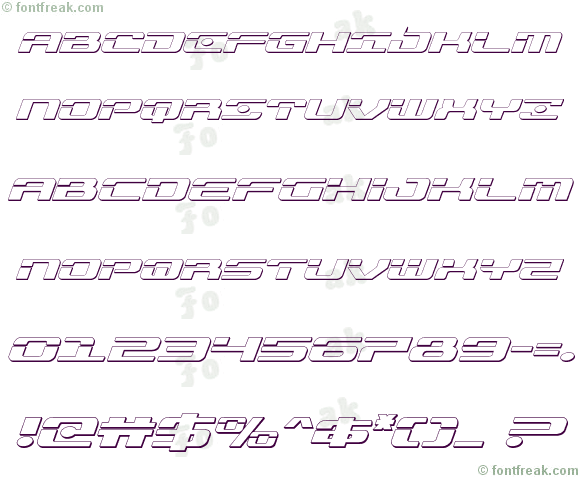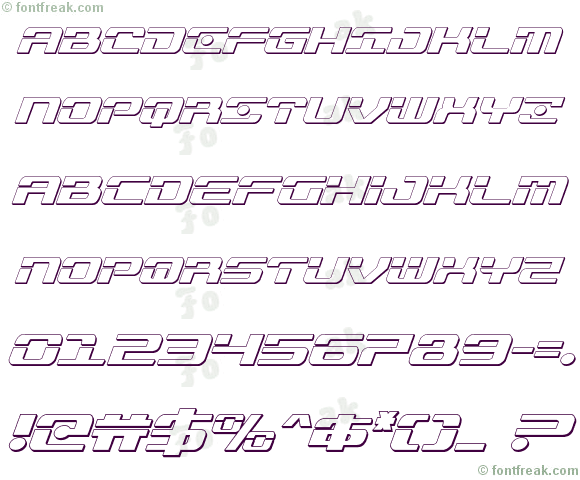
Troopers Academy Expanded
About Troopers Academy Expanded
Troopers Academy Expanded, designed by Daniel Zadorozny, is a striking display font that falls within the decorative category. This font captures a bold, dynamic style with its unique 3D appearance, making it an excellent choice for projects that require a strong visual impact. The strokes are thick and robust, providing a sense of stability, while the expanded letterforms create an engaging sense of space and movement. The overall design features minimal contrast, which enhances readability, and the spacing between characters is well-balanced, ensuring that each letter stands out without feeling cramped.
Ideal for a variety of creative applications, Troopers Academy Expanded is particularly well-suited for movie posters, video game graphics, and promotional materials where a punchy aesthetic is needed. Its adventurous style can also elevate branding efforts for small businesses, especially those in entertainment or sports. Additionally, the font's unique characteristics make it a fun choice for custom merchandise, such as t-shirts and hats, appealing to both fans and casual wearers alike.
The target audience for this font includes graphic designers looking for a versatile display typeface, small business owners who want to make a strong impression, and content creators aiming to capture attention in their projects.